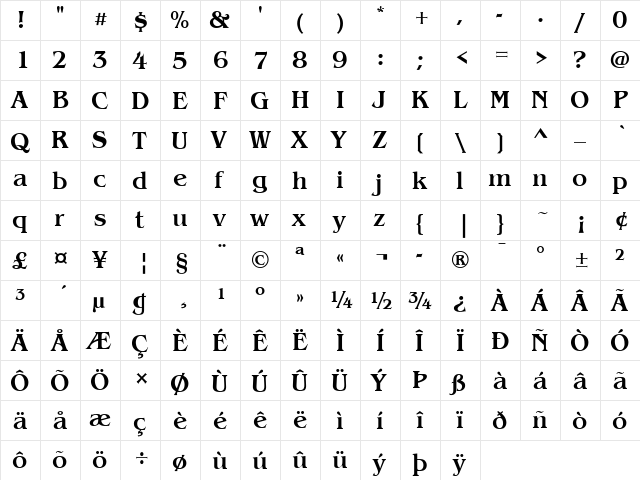
Benguiat Medium Regular
Design Context for Benguiat Medium Typeface
Benguiat Medium is a composed and adaptable typeface that performs quietly and consistently across a wide range of design contexts.